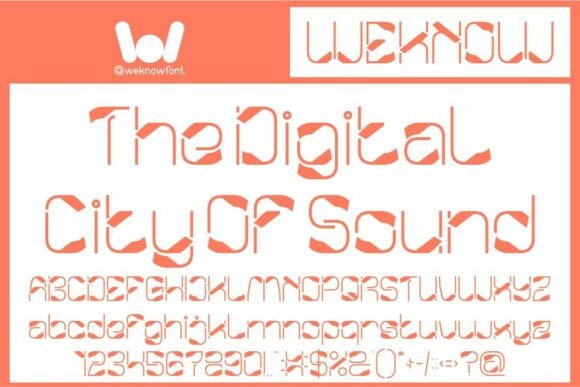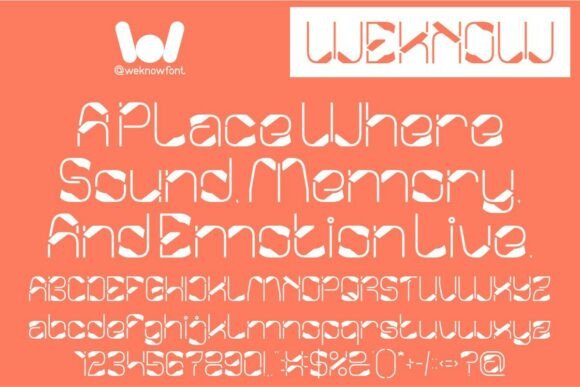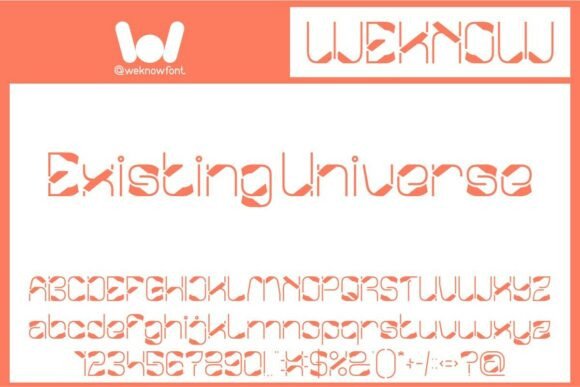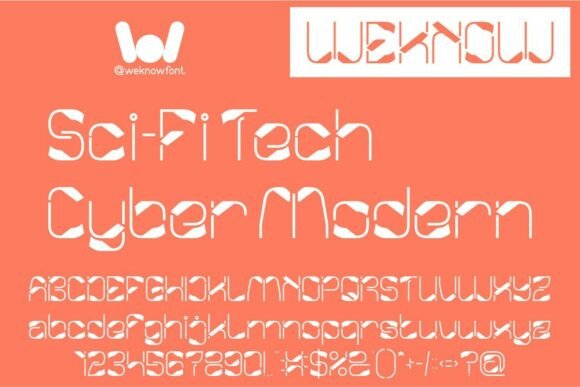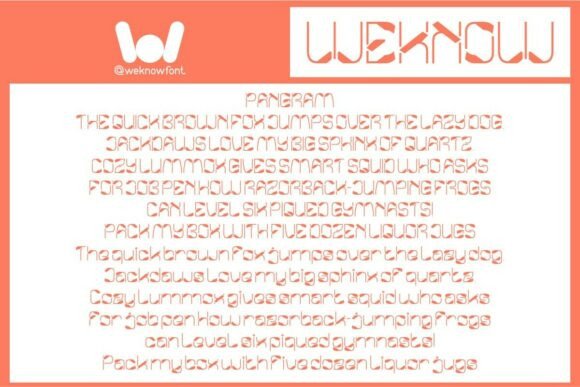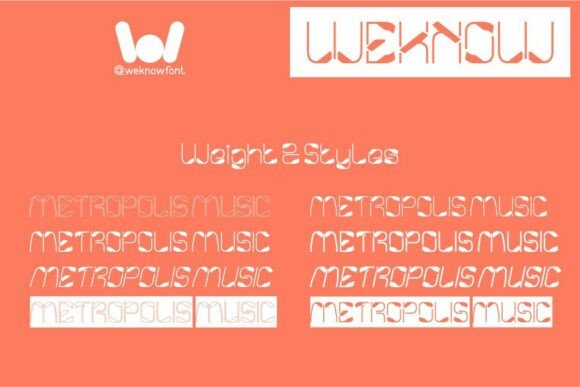
Introduction to Metropolis Music Font Font
Fonts play a crucial role in design, and the Metropolis Music Font font is a typeface that brings both character and versatility to any project. Whether you’re working on a branding project, a website, or a print design, the Metropolis Music Font font offers a unique style that can elevate your work.
Stepping straight out of the future, Metropolis Music is a dynamic font that seamlessly combines the essence of science fiction and cyber modernism.
It flaunts modular geometric nuances, a unique digital stencil effect, and a mold-breaking, sans-serif persona Its edgy look and feel enhances logos and logotypes and infuses a bold spirit into corporate and brand identities.
Key Features of Metropolis Music Font Font
Why Choose Metropolis Music Font Font?
The Metropolis Music Font font is more than just a typeface – it’s a design tool that helps you communicate your message with style and clarity. Its unique character set and versatile design make it suitable for a wide range of applications, from elegant invitations to bold headlines.
With its carefully crafted letterforms and balanced proportions, the Metropolis Music Font font ensures readability and visual appeal across all mediums.
What makes Metropolis Music Font font special?
The Metropolis Music Font font stands out with its unique design, exceptional readability, and versatility across various design applications.